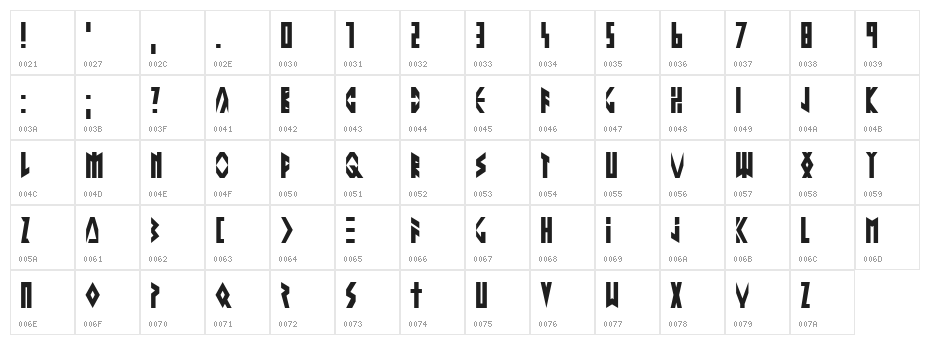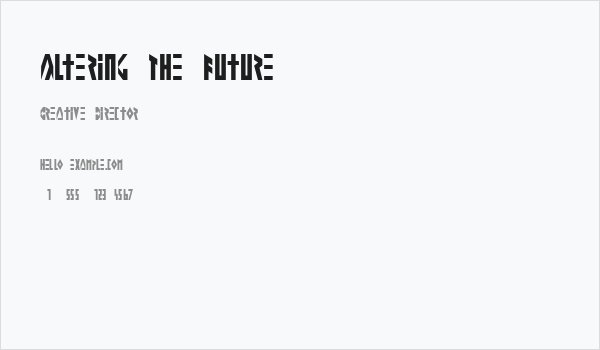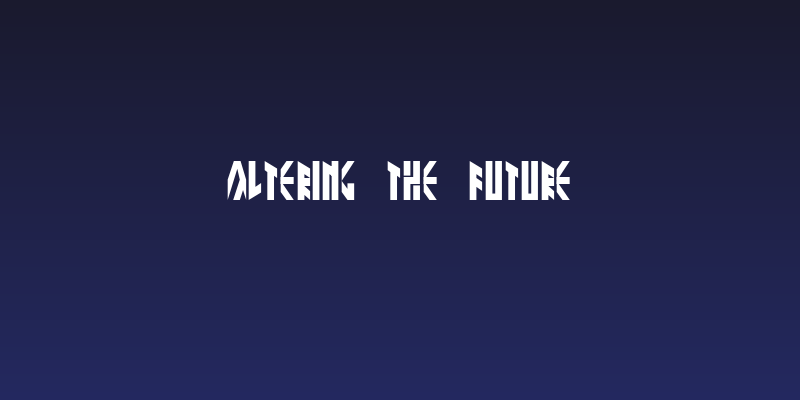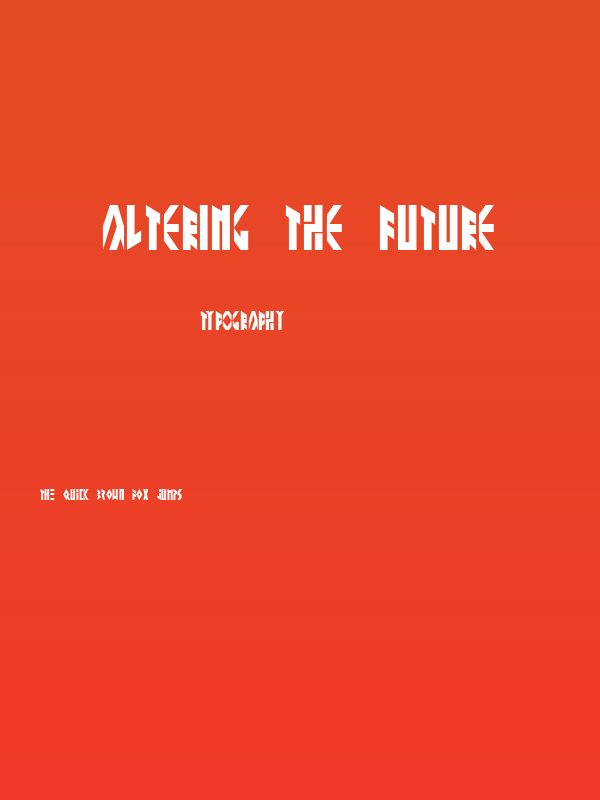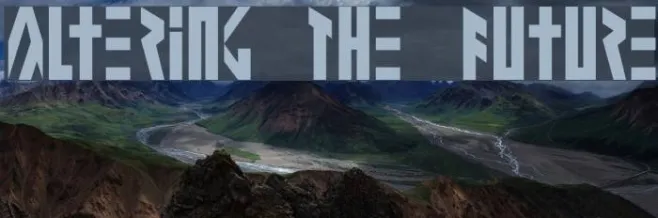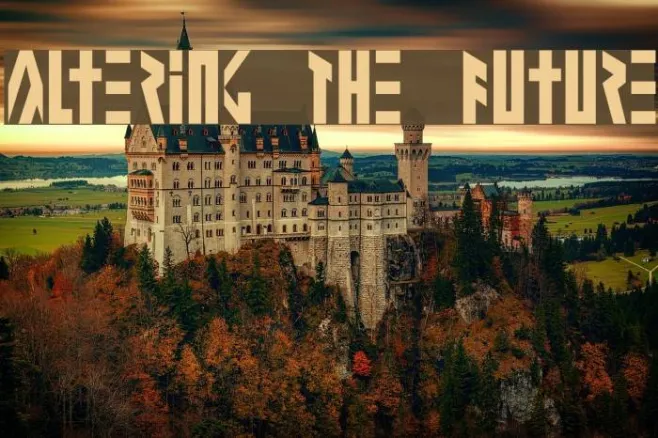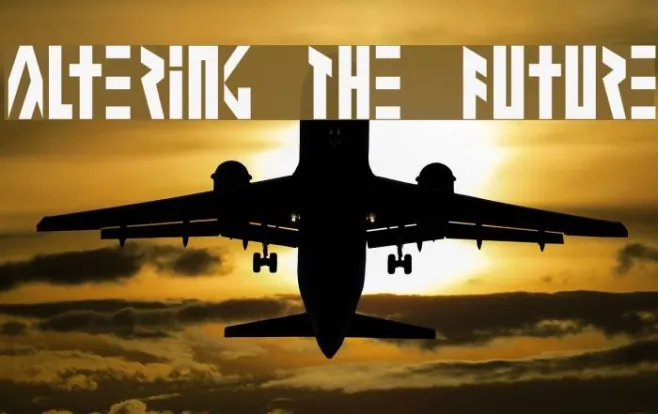
Altering The Future Font
Altering The Future Description
This font features a bold, geometric design with sharp angles and a futuristic aesthetic. The characters are constructed with a combination of straight lines and angular cuts, creating a dynamic and edgy appearance. The uppercase and lowercase letters share a consistent style, emphasizing uniformity and cohesion. The numbers and special characters follow the same design principles, ensuring a seamless integration across all elements. This font's unique style makes it stand out, offering a modern and innovative look that captures attention.
| Proposed Projects | Ideal for sci-fi themed projects, modern branding, video game titles, and tech-oriented designs. |